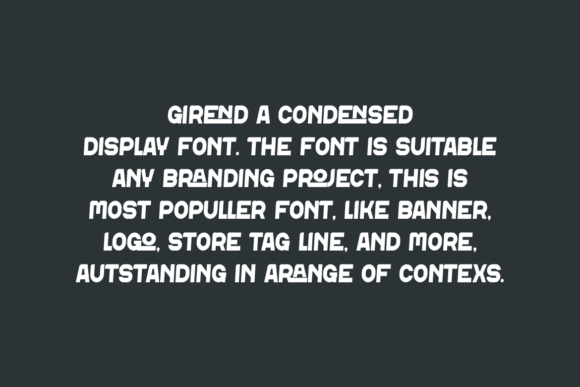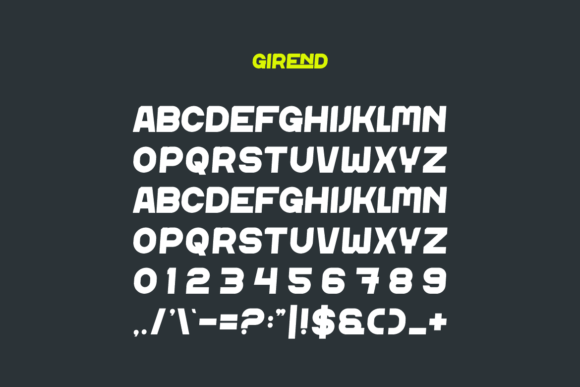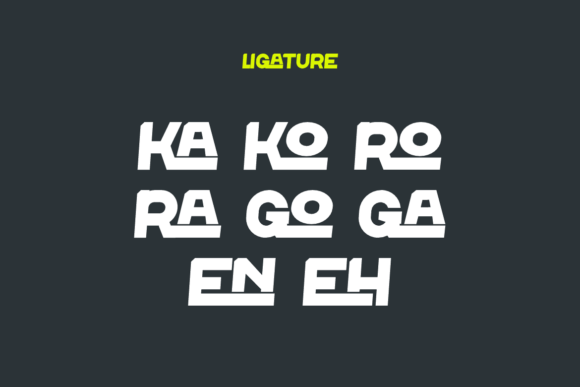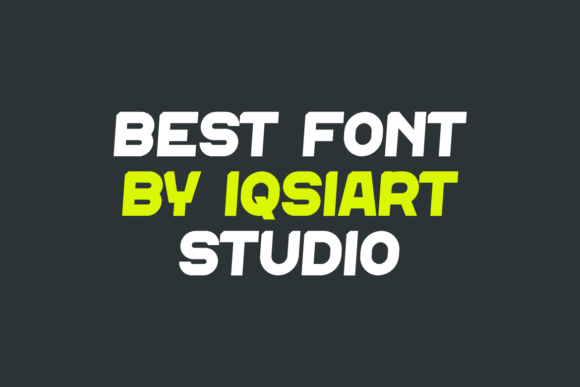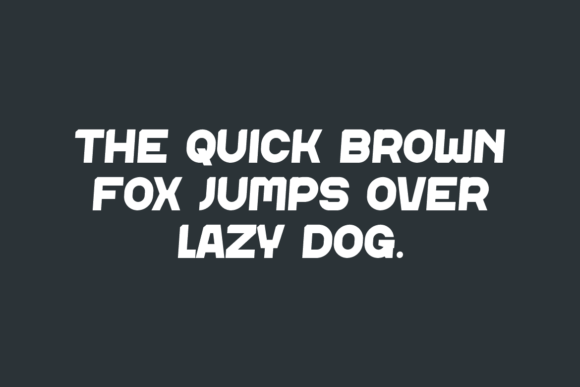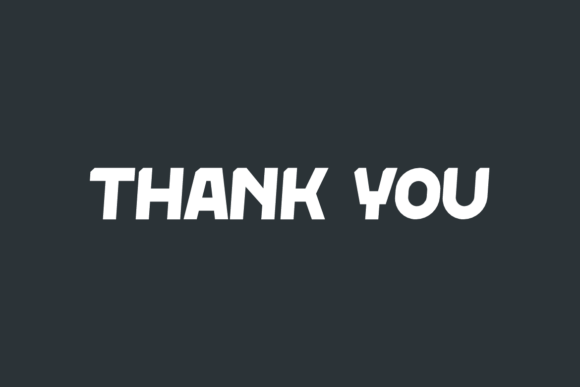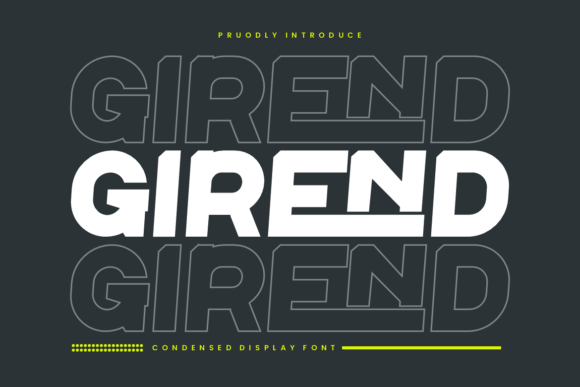
Introducing Girend Font: The Ultimate Bold and Modern Condensed Display Typeface
In the world of typography, a font can make or break a design. For designers and crafters looking to make a statement, Girend Font is the perfect solution. This bold and modern condensed display typeface is designed to pack a punch, with clean lines and geometric shapes that scream attention-grabbing. In this article, we’ll dive into the world of Girend Font, exploring its features, benefits, and uses, and why it’s the go-to choice for headlines, logos, posters, sports branding, and technology-inspired projects.
The Power of Girend Font: Strong and Dynamic Aesthetic
Girend Font boasts a strong and dynamic aesthetic that’s perfect for designers looking to add a contemporary edge to their work. Its condensed design makes it ideal for projects where space is limited, but impact is crucial. The font’s geometric shapes and clean lines create a sense of modernity and sophistication, making it perfect for a wide range of applications, from sports branding to technology-inspired projects.
Key Features of Girend Font
- Bold and Modern Design: Girend Font features a bold and modern design that’s perfect for making a statement.
- Condensed Display Typeface: Its condensed design makes it ideal for projects where space is limited.
- Clean Lines and Geometric Shapes: The font’s clean lines and geometric shapes create a sense of modernity and sophistication.
- High-Impact: Girend Font is designed to grab attention and make a lasting impression.
Uses of Girend Font
Girend Font is a versatile typeface that can be used in a wide range of applications, including:
- Headlines: Girend Font is perfect for headlines, where its bold and modern design can make a statement.
- Logos: The font’s strong and dynamic aesthetic makes it ideal for logos that need to stand out.
- Posters: Girend Font is perfect for posters, where its high-impact design can grab attention.
- Sports Branding: The font’s modern and dynamic aesthetic makes it perfect for sports branding, where energy and movement are key.
- Technology-Inspired Projects: Girend Font’s clean lines and geometric shapes make it perfect for technology-inspired projects, such as tech startups and gadgets.
Benefits of Using Girend Font
So why choose Girend Font for your next design project? Here are just a few benefits:
- Instant Impact: Girend Font is designed to grab attention and make a lasting impression.
- Versatility: The font’s versatility makes it perfect for a wide range of applications.
- Modern and Sophisticated: Girend Font’s clean lines and geometric shapes create a sense of modernity and sophistication.
- Easy to Read: Despite its bold design, Girend Font is easy to read, even at small sizes.
In conclusion, Girend Font is a bold and modern condensed display typeface that’s perfect for designers and crafters looking to make a statement. Its strong and dynamic aesthetic, combined with its versatility and ease of use, make it the go-to choice for headlines, logos, posters, sports branding, and technology-inspired projects. Whether you’re looking to add a contemporary edge to your designs or simply want to make a lasting impression, Girend Font is the perfect solution.